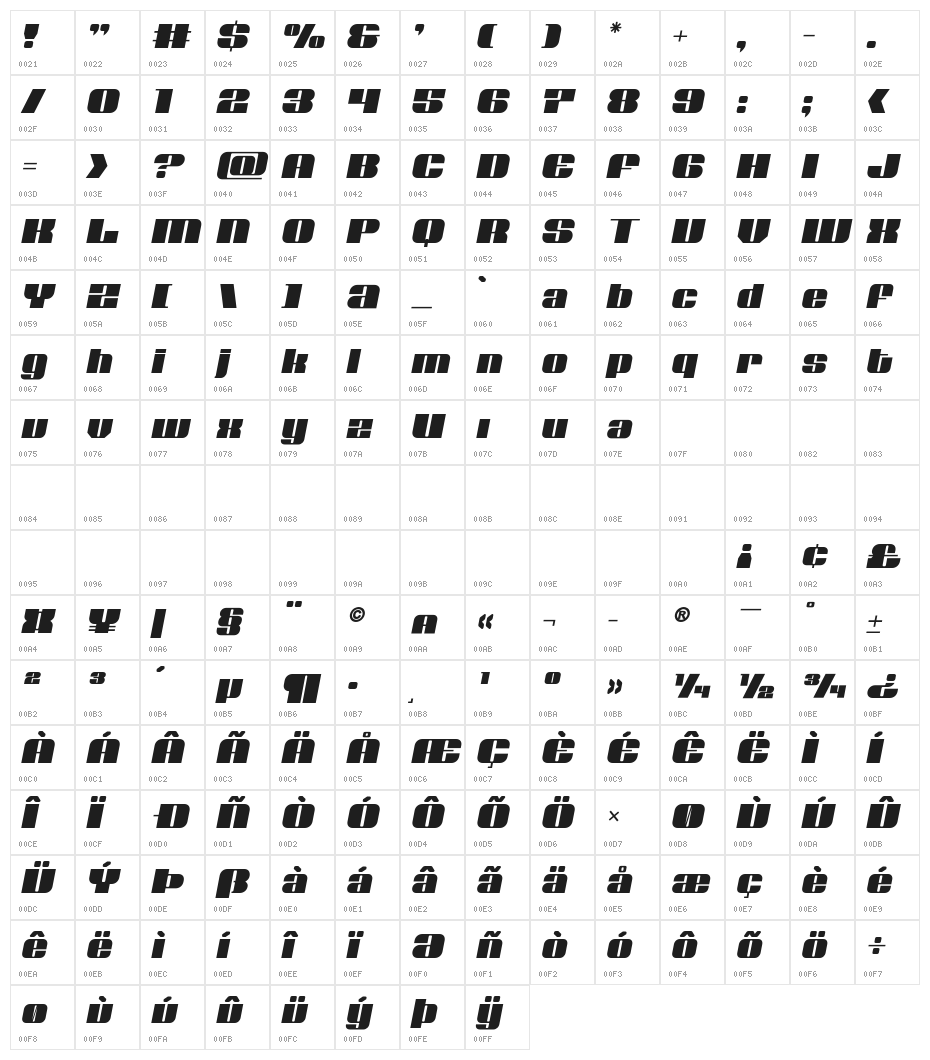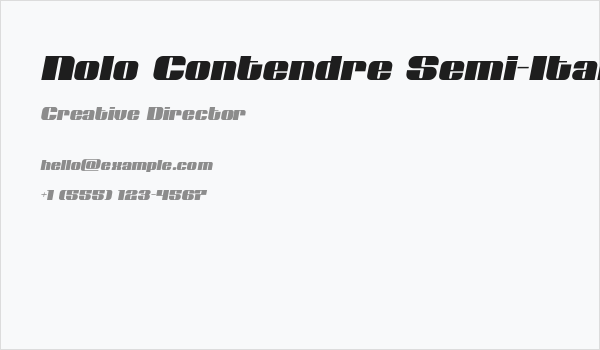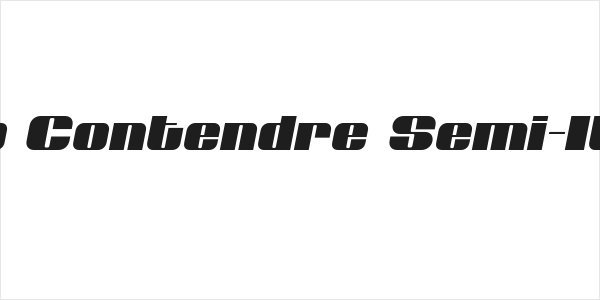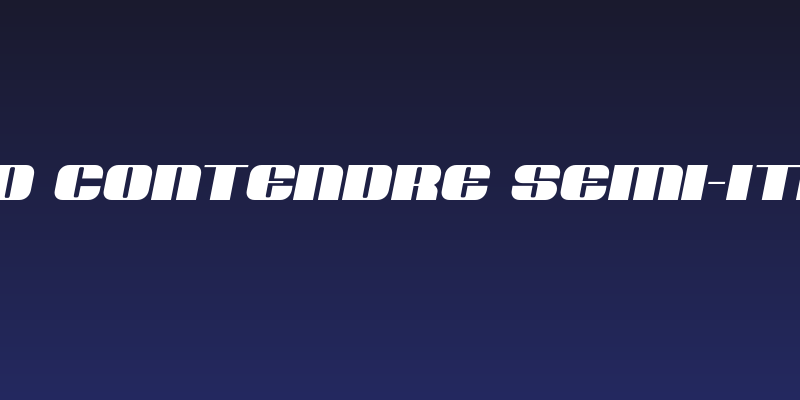
Nolo Contendre Semi-Italic Font
Nolo Contendre Semi-Italic Description
This font features a bold and dynamic design with a semi-italic slant, giving it a sense of motion and energy. The characters are wide and have a strong presence, making them ideal for impactful headlines and attention-grabbing designs. The strokes are thick and consistent, providing a uniform appearance across all characters. The uppercase and lowercase letters maintain a cohesive style, while the numerals and special characters complement the overall aesthetic. The font's modern and assertive look makes it suitable for a variety of creative projects.